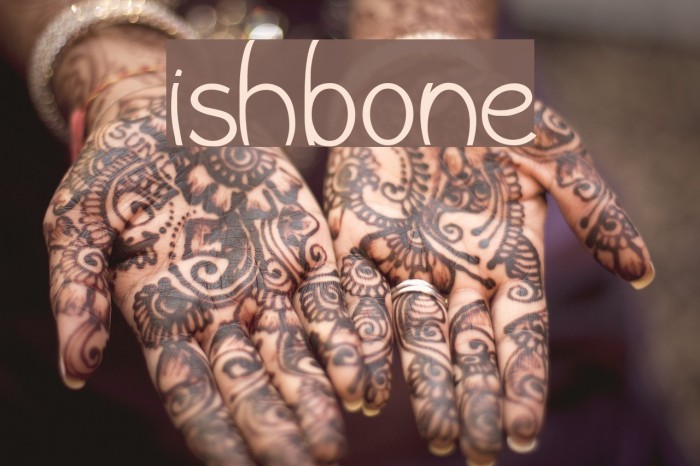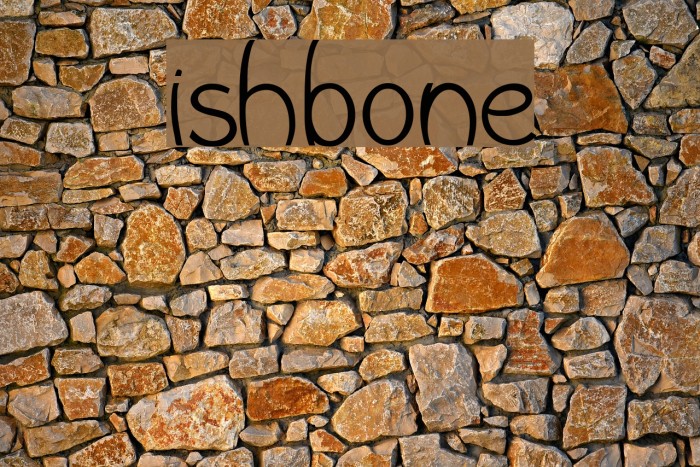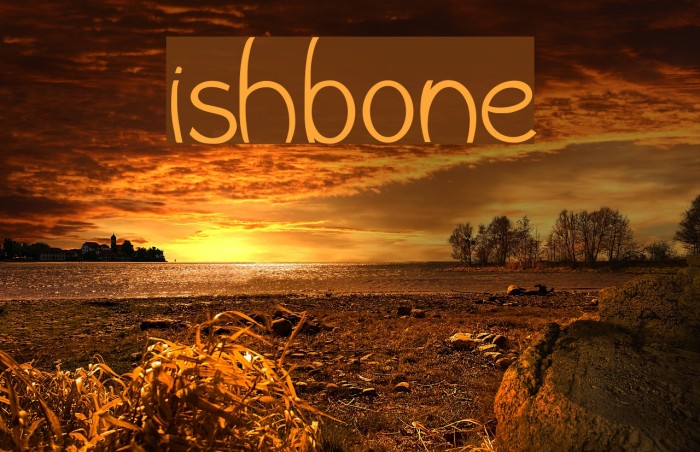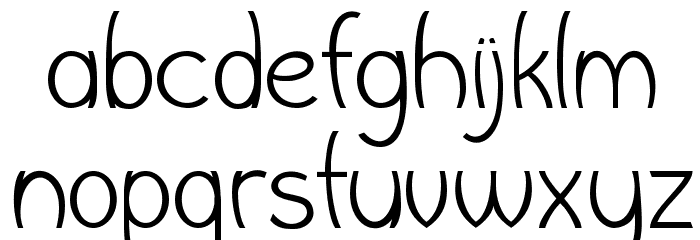
Wishbone Font
Wishbone Description
This font features a playful and whimsical design, characterized by its rounded and slightly irregular letterforms. Each character has a unique, hand-drawn quality that adds a sense of charm and personality. The strokes are consistent in width, giving it a clean and approachable appearance. The font maintains a casual and friendly tone, making it suitable for informal and creative projects. Its distinct style is evident in the way certain letters, such as 'g' and 'j', have elongated descenders, adding to its quirky aesthetic. The overall design is cohesive, with a balance between readability and artistic flair.
| Proposed Projects | Ideal for children's books, greeting cards, playful branding, and creative posters. |